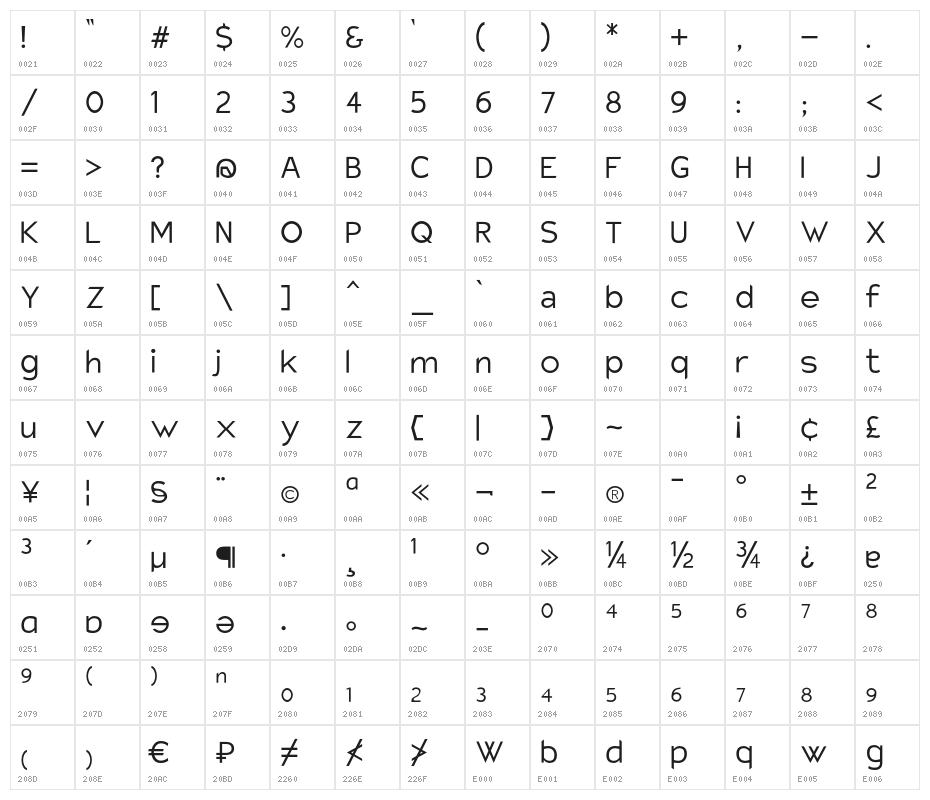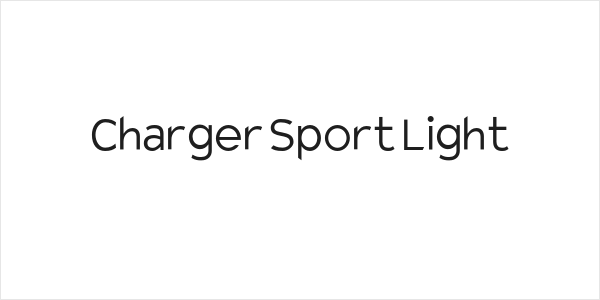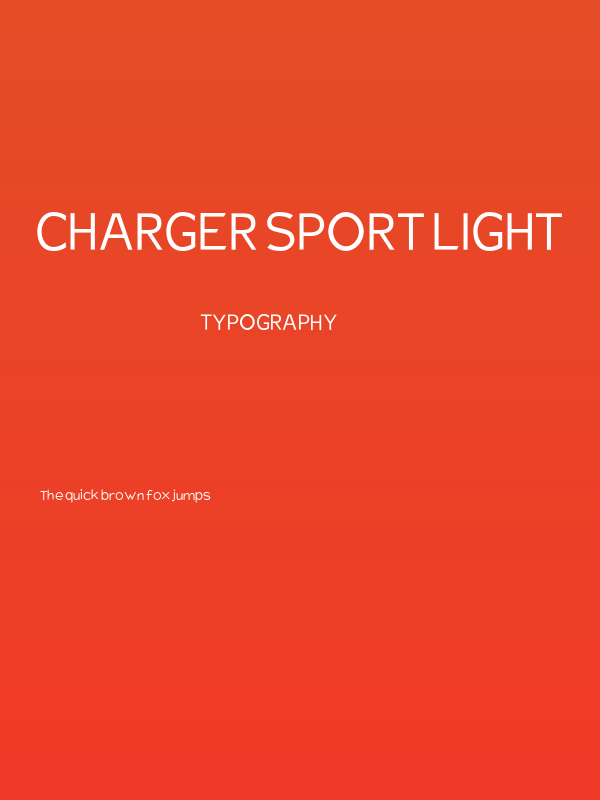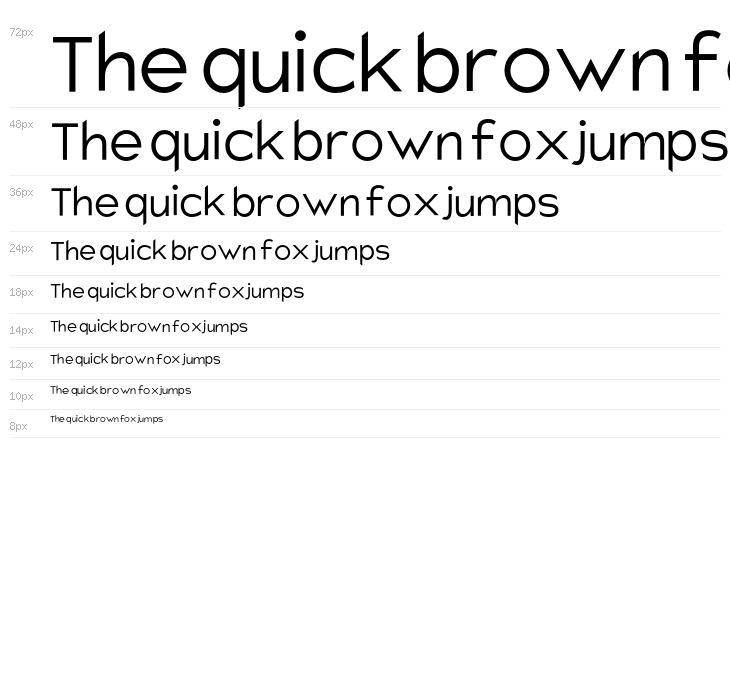
Charger Sport Light Font
Charger Sport Light Description
This typeface features a clean and modern sans-serif design with a geometric structure. The characters are well-balanced, offering a harmonious appearance that is both sleek and professional. Uppercase and lowercase letters maintain a consistent style, with smooth curves and straight lines that enhance readability. The numerals are clear and distinct, making them suitable for various applications. Special characters are included, providing versatility for different design needs. The overall look is contemporary, making it ideal for projects that require a fresh and modern aesthetic.
| Proposed Projects | Ideal for branding, web design, advertising, and editorial layouts. |